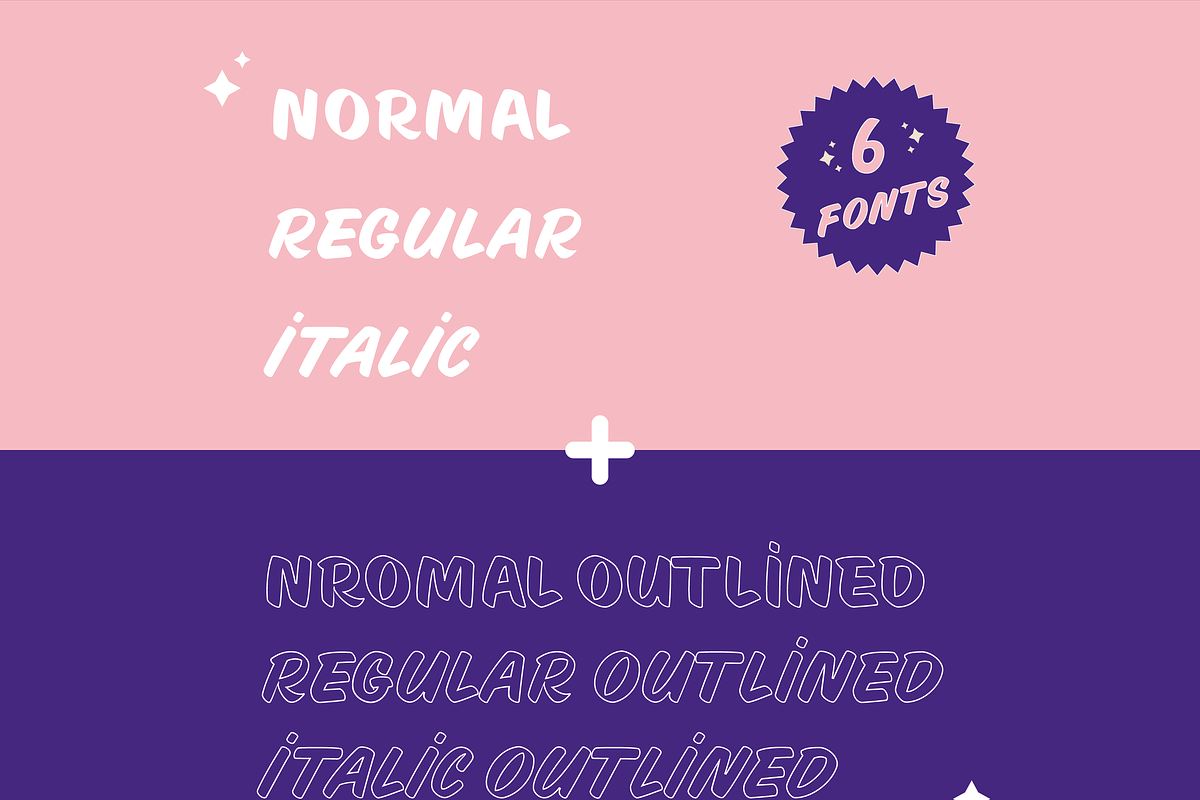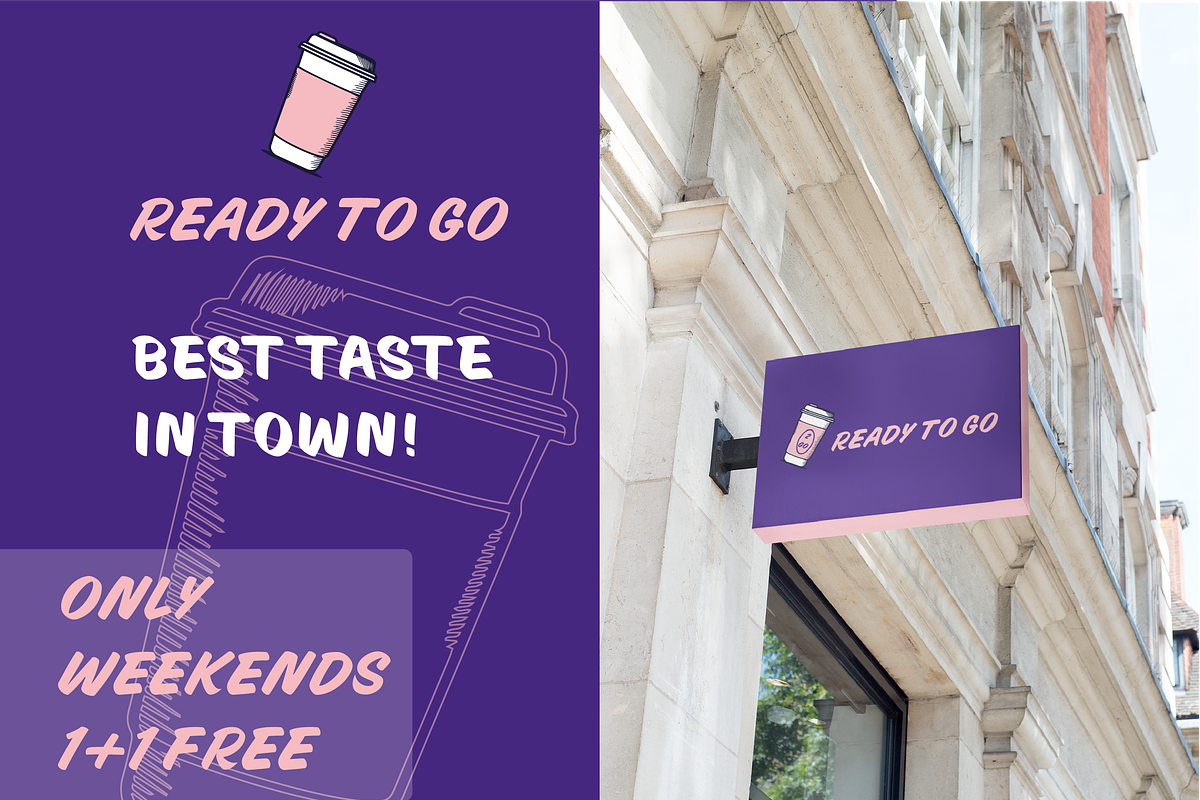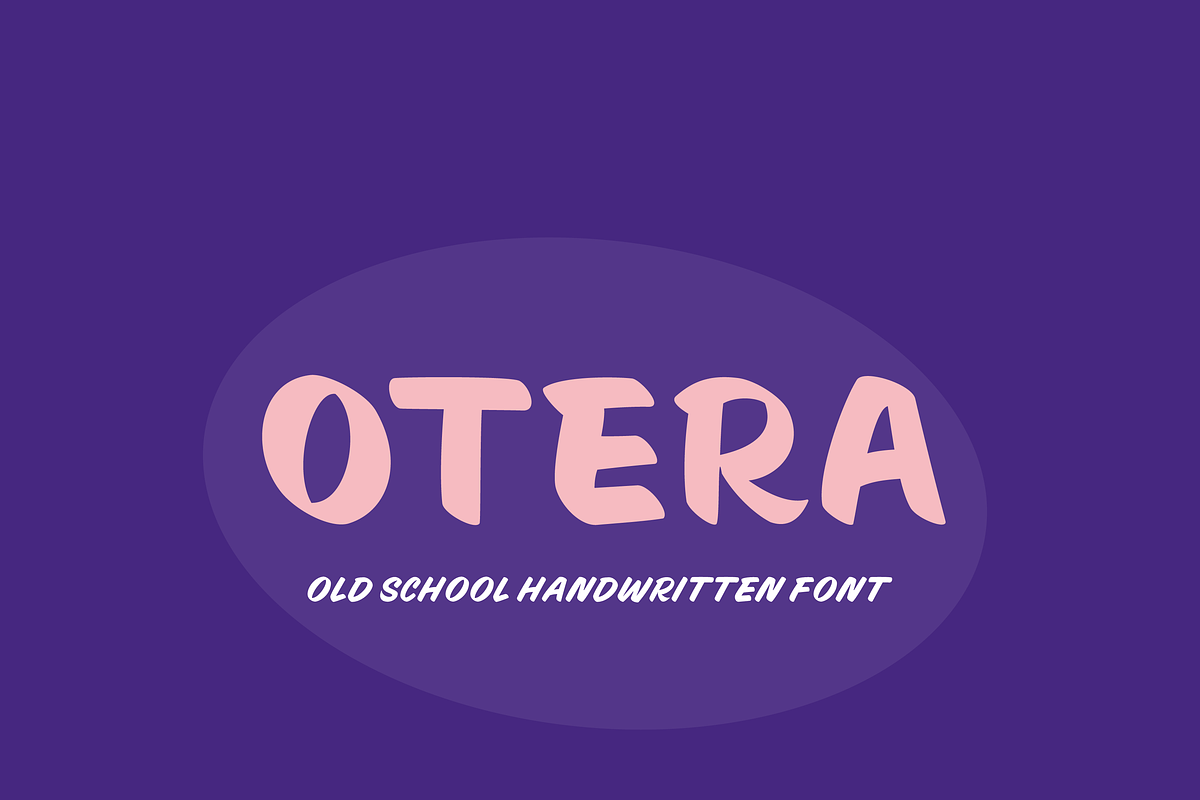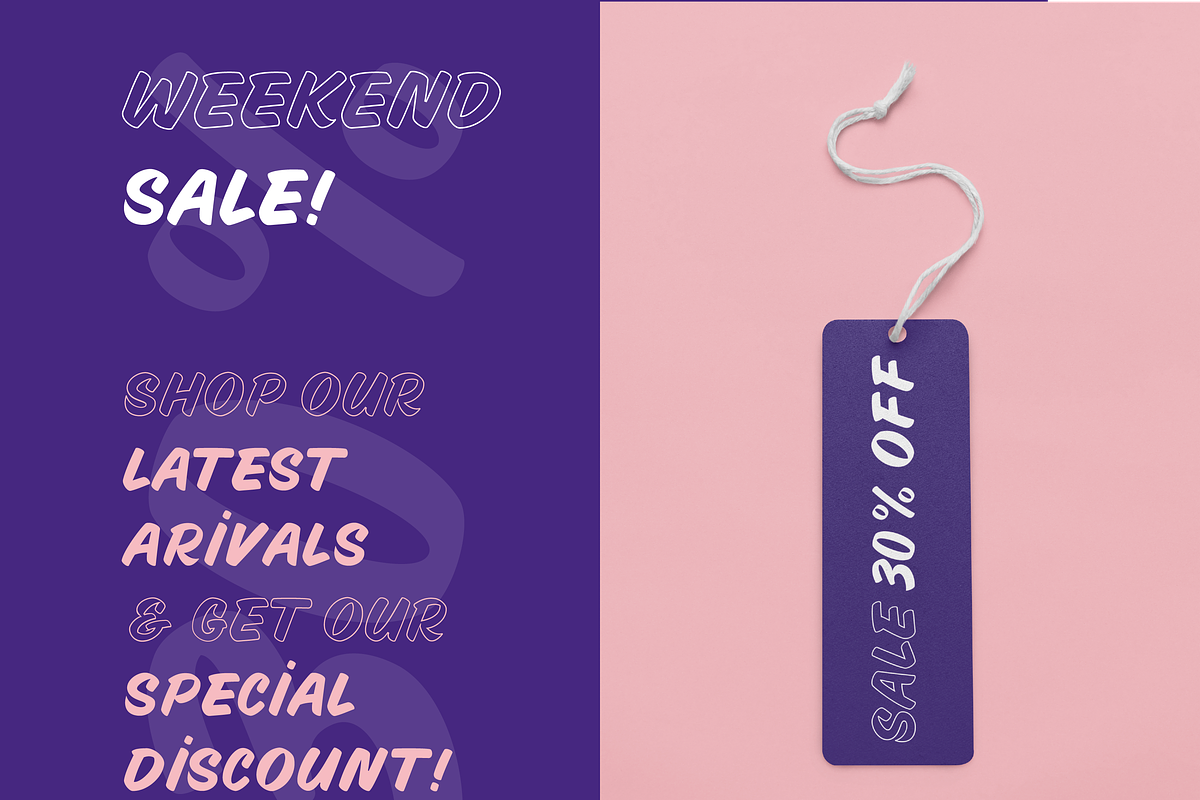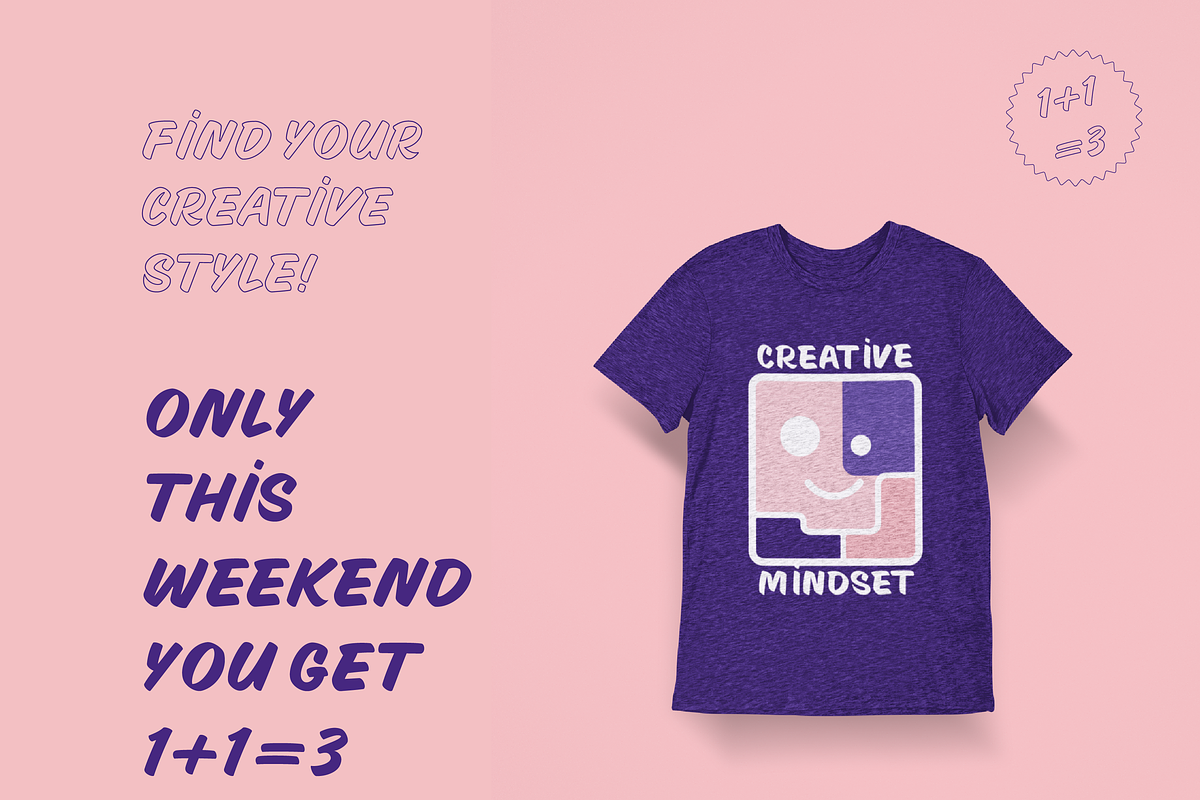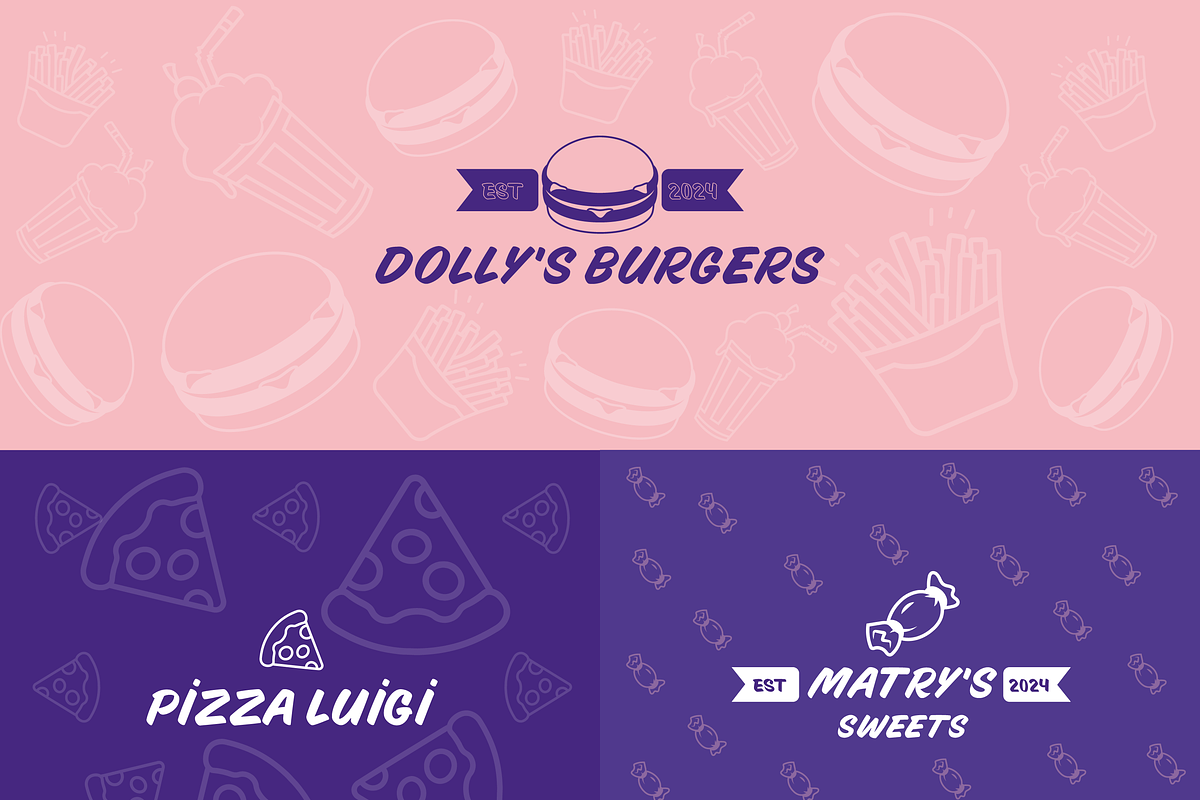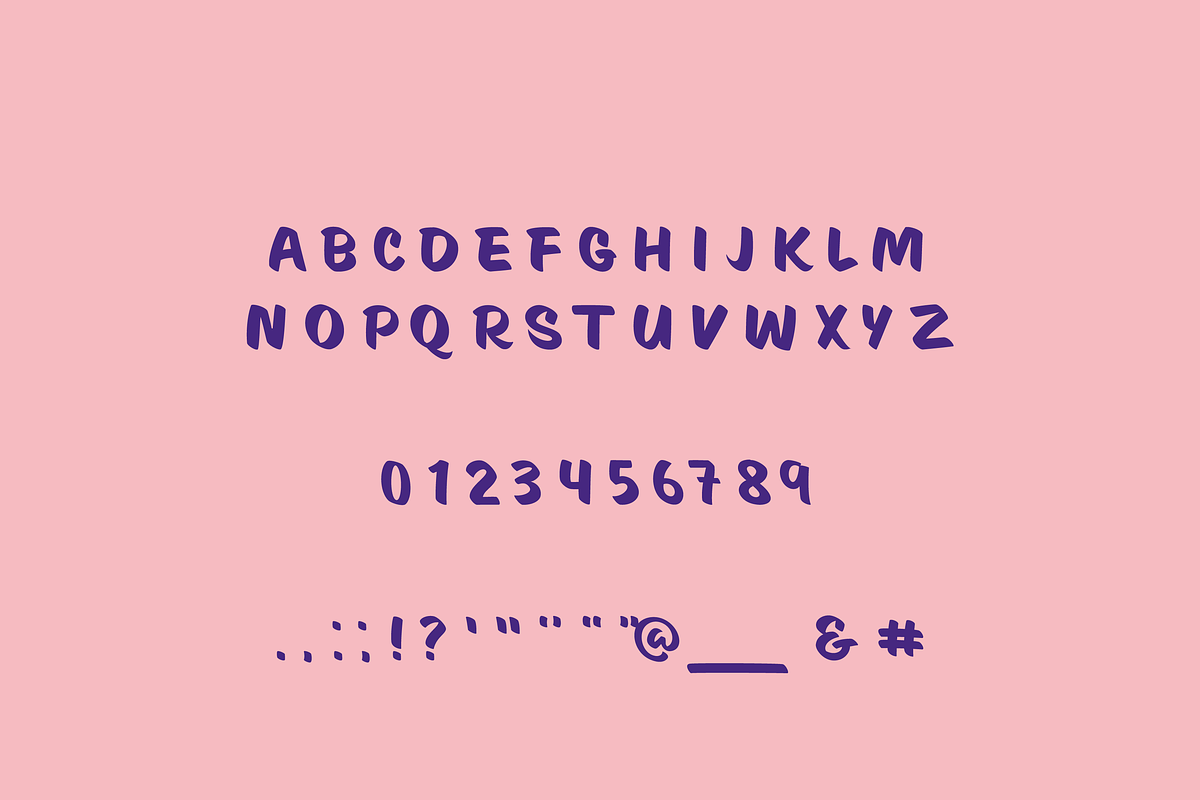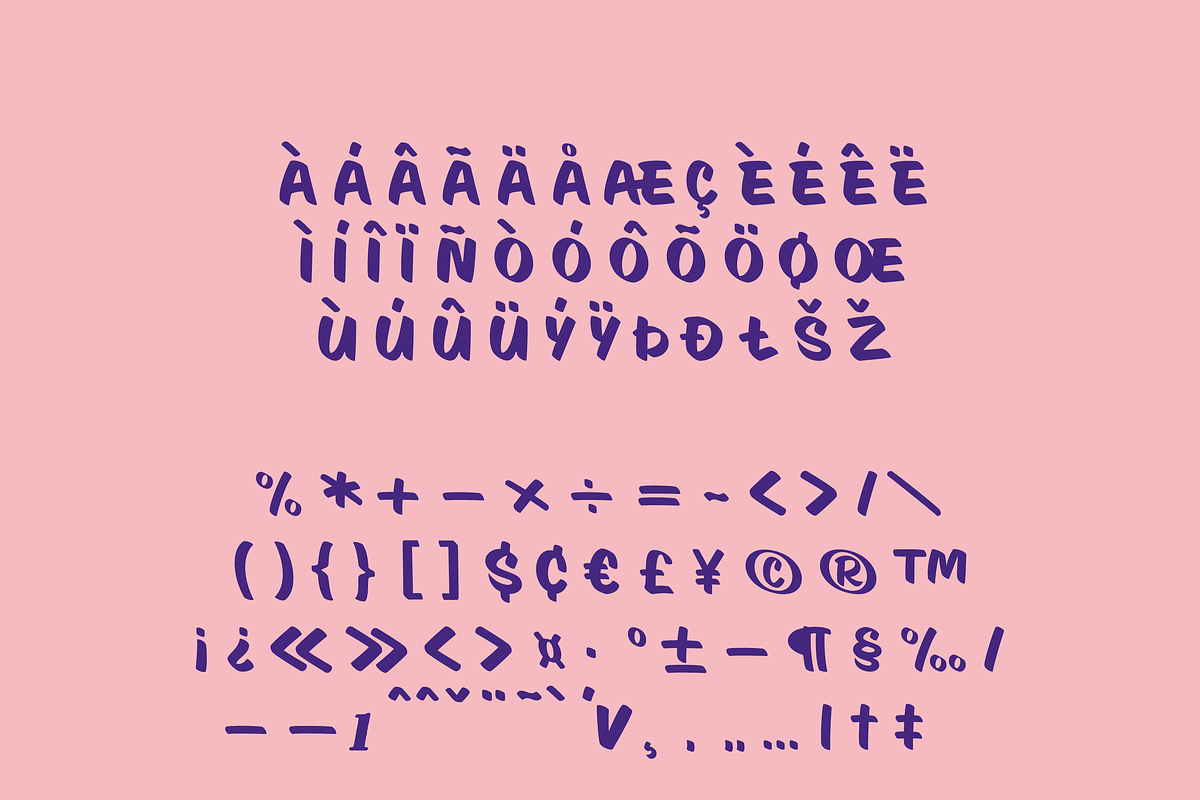
Otera Script Font Family
Otera – Handcrafted Sign Painting Font
Otera is a hand-painted, all-caps sign font with a handwritten style, designed to bring a personal and artistic touch to your projects. Inspired by traditional sign painting, this font is perfect for chalkboard menus, shop signage, and vintage-style branding. Its bold, expressive strokes make it a standout choice for posters, labels, product designs, and more.
Whether you're aiming for a vintage storefront aesthetic or a casual, handwritten look, Otera delivers an authentic and engaging style to make your typography stand out.